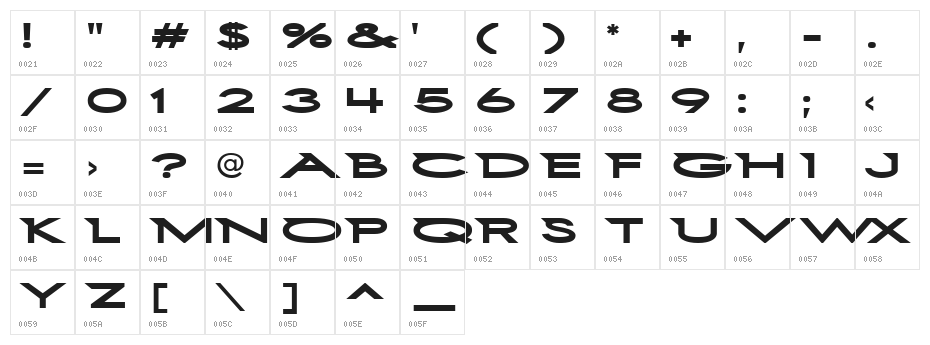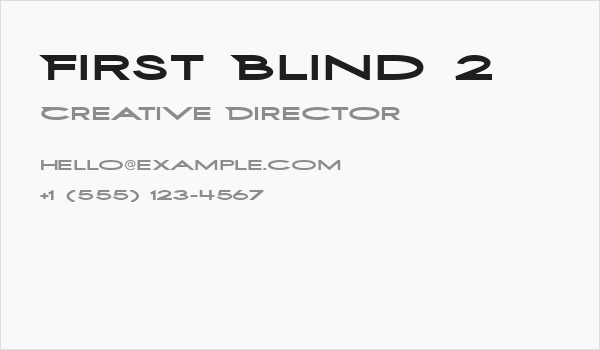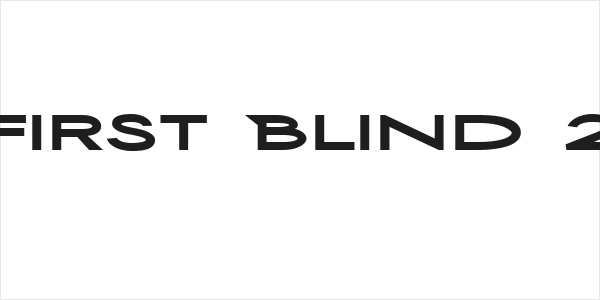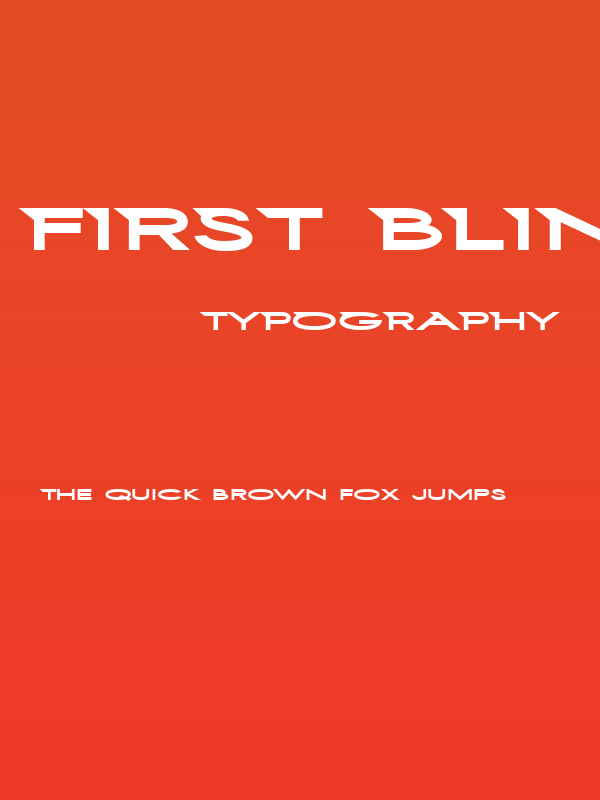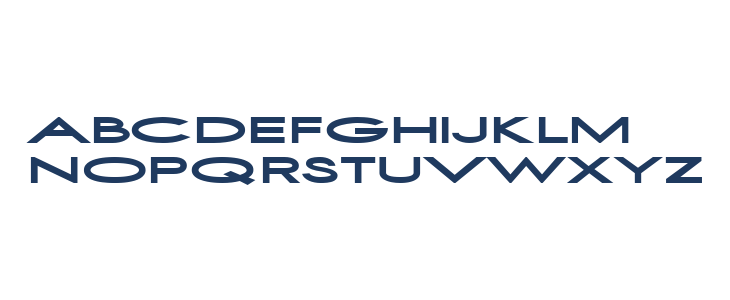
First Blind 2 Font
First Blind 2 Description
This font features a bold and modern design with a futuristic flair. The characters are wide and have a distinct geometric style, characterized by sharp angles and clean lines. The uppercase letters are particularly striking, with a strong presence that commands attention. The lowercase letters maintain the same boldness, ensuring consistency throughout the typeface. Numbers are equally bold and clear, making them suitable for impactful displays. Special characters are designed to match the overall aesthetic, providing a cohesive look across all elements. This font is ideal for projects that require a modern and assertive typeface.
| Width | Expanded |
| Overall Style | Futuristic |
| Proposed Projects | Ideal for branding, technology-related projects, posters, and headlines. |